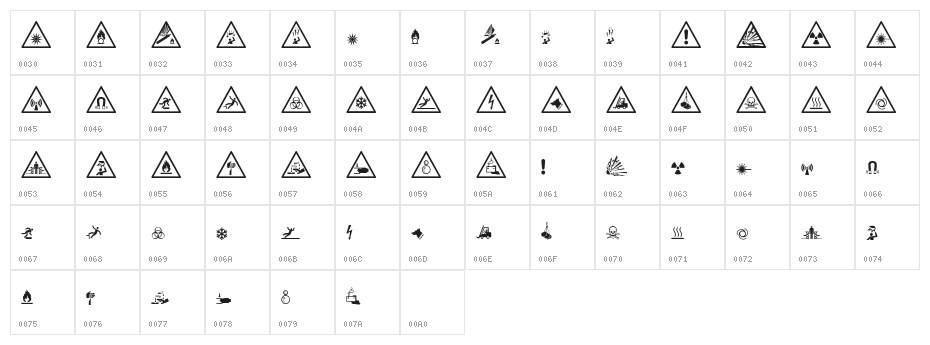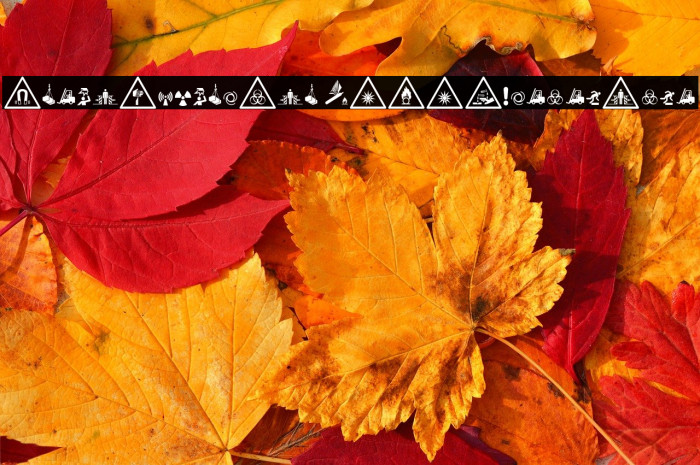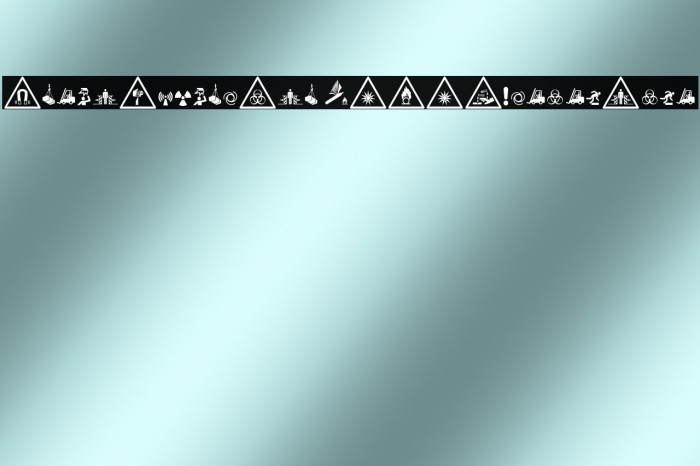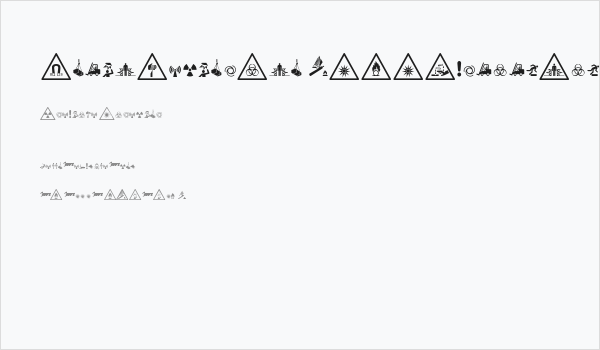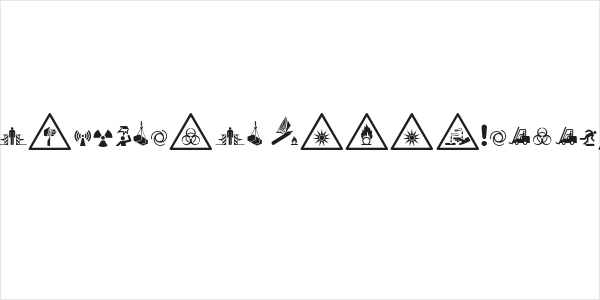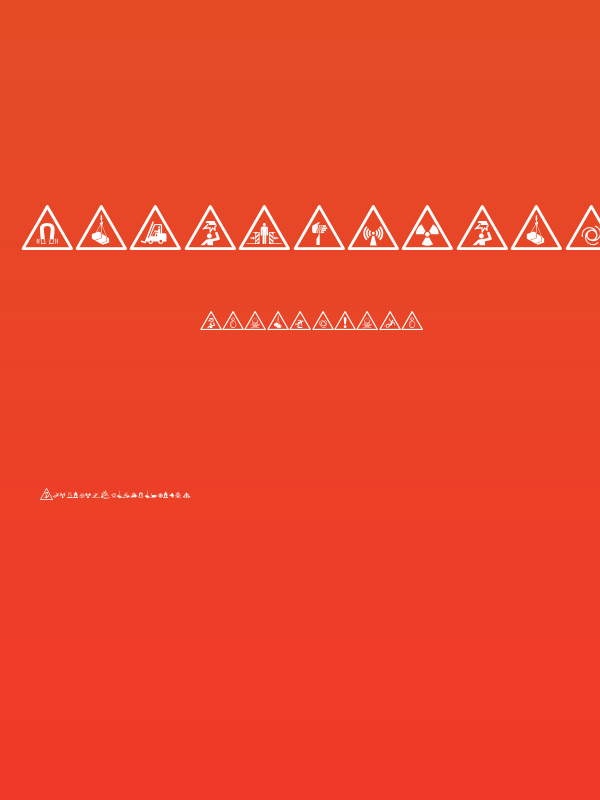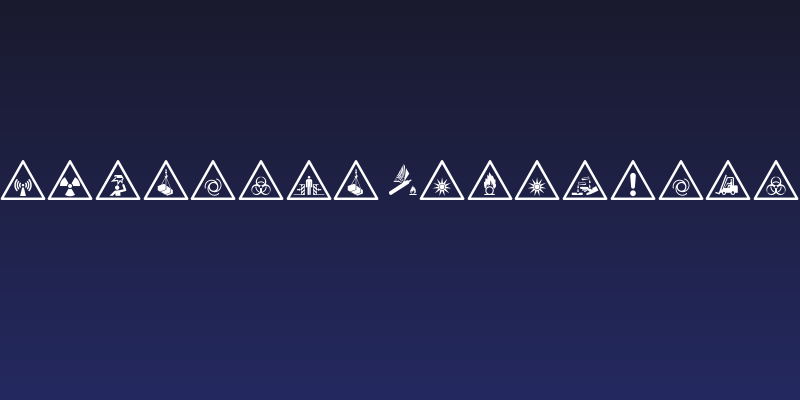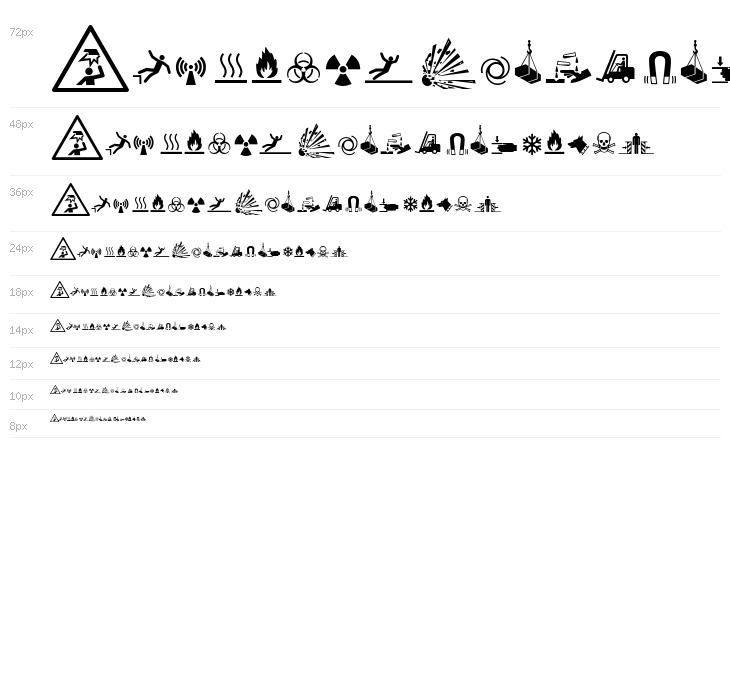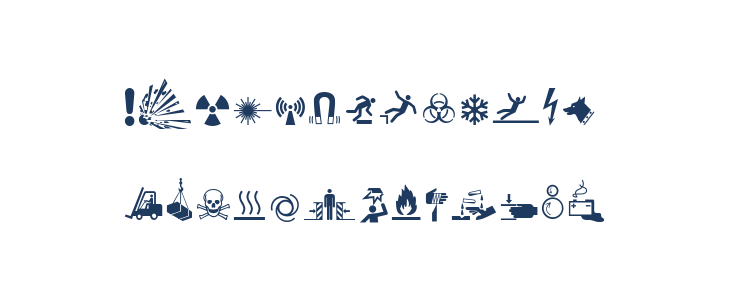
FontsVectorIso7010WarningSign Font
FontsVectorIso7010WarningSign Description
A collection of ISO 7010-style warning sign pictograms, featuring bold, simplified black icons within triangular outlines, representing various hazards such as electrical, chemical, biological, and physical dangers. The symbols are highly legible and standardized for universal recognition.
| Overall Style | Modern, Functional, Industrial |
| Use Case | Signage, Labels, Posters, Manuals |
| Proposed Projects | Safety signage, instructional materials, industrial labeling, workplace hazard communication, educational posters. |